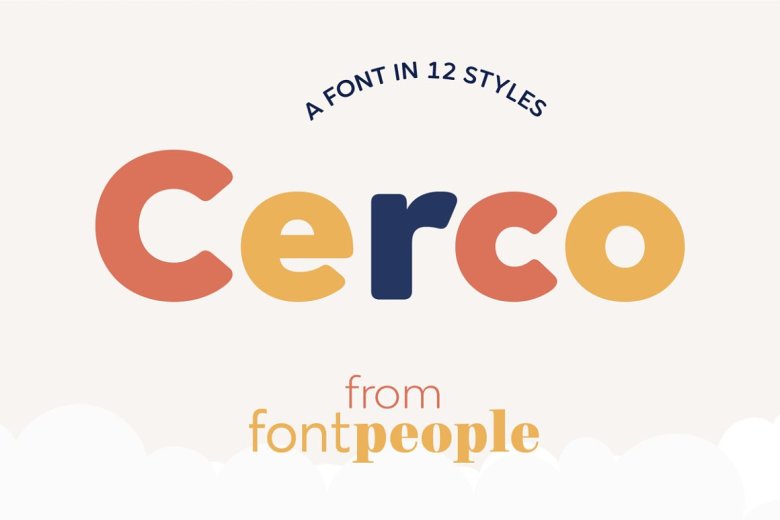
Cerco Font Family
Cerco Font
Cerco Sans Serif Font is a soft and friendly typeface that looks a little warm with playful, this font is suitable for use in everyday life now such as designs, branding work, covering magazines.
Read more Intermediate styles The intermediate styles suite perfect for body texts and strong weights particularly looking stunning at display size.
Cerco Sans Serif Font Family